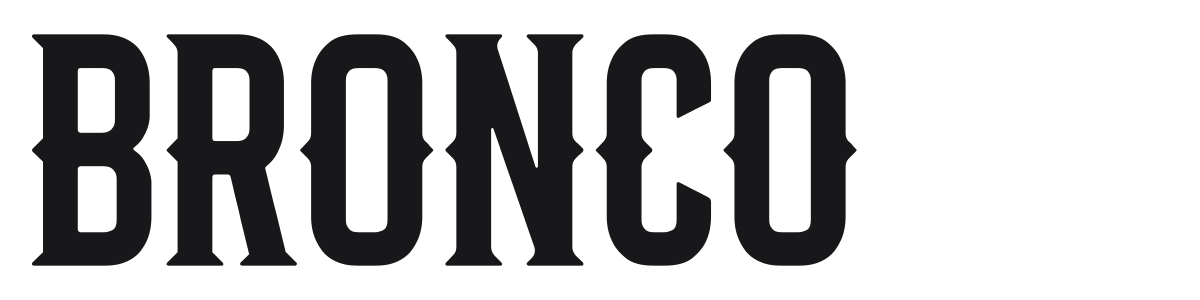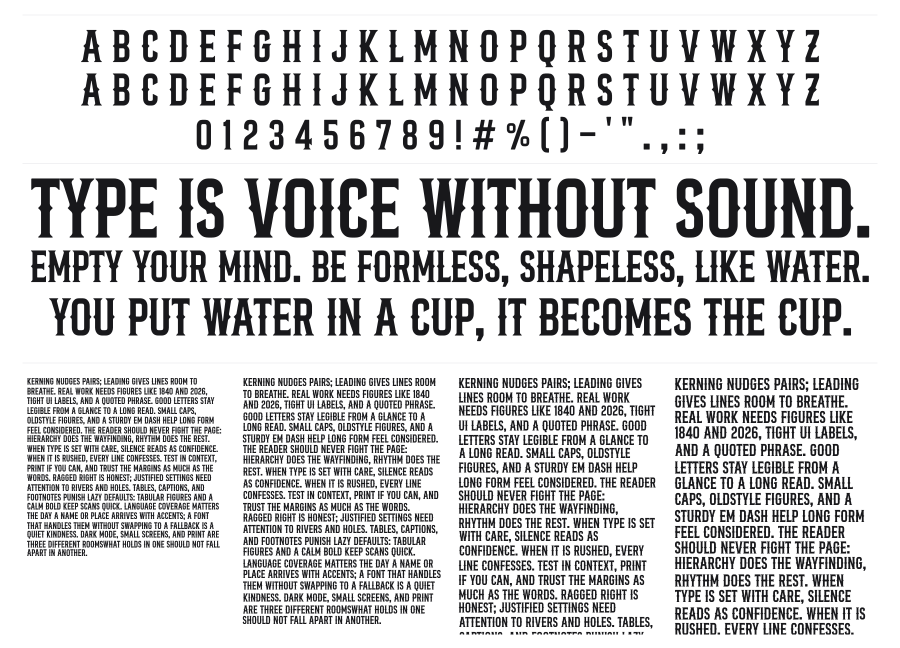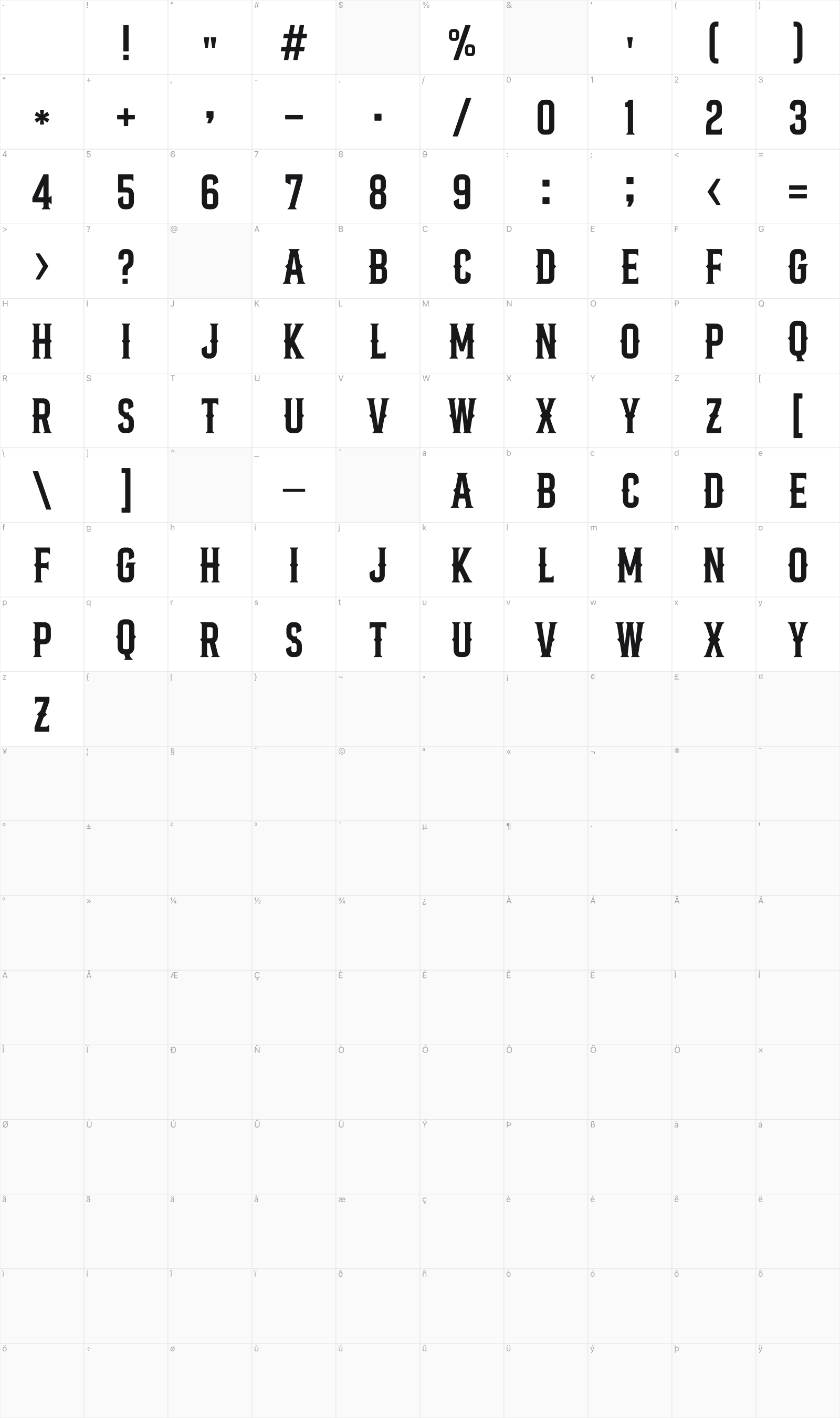
Bronco
Bronco is a condensed vintage serif built on the bones of 19th-century American wood type. Heavy stems taper into crisp bracketed serifs, and subtle notched details at stroke junctions add a hand-crafted, worn-press quality. It works hard at large sizes on posters, labels, and anywhere a rugged frontier tone is the point.